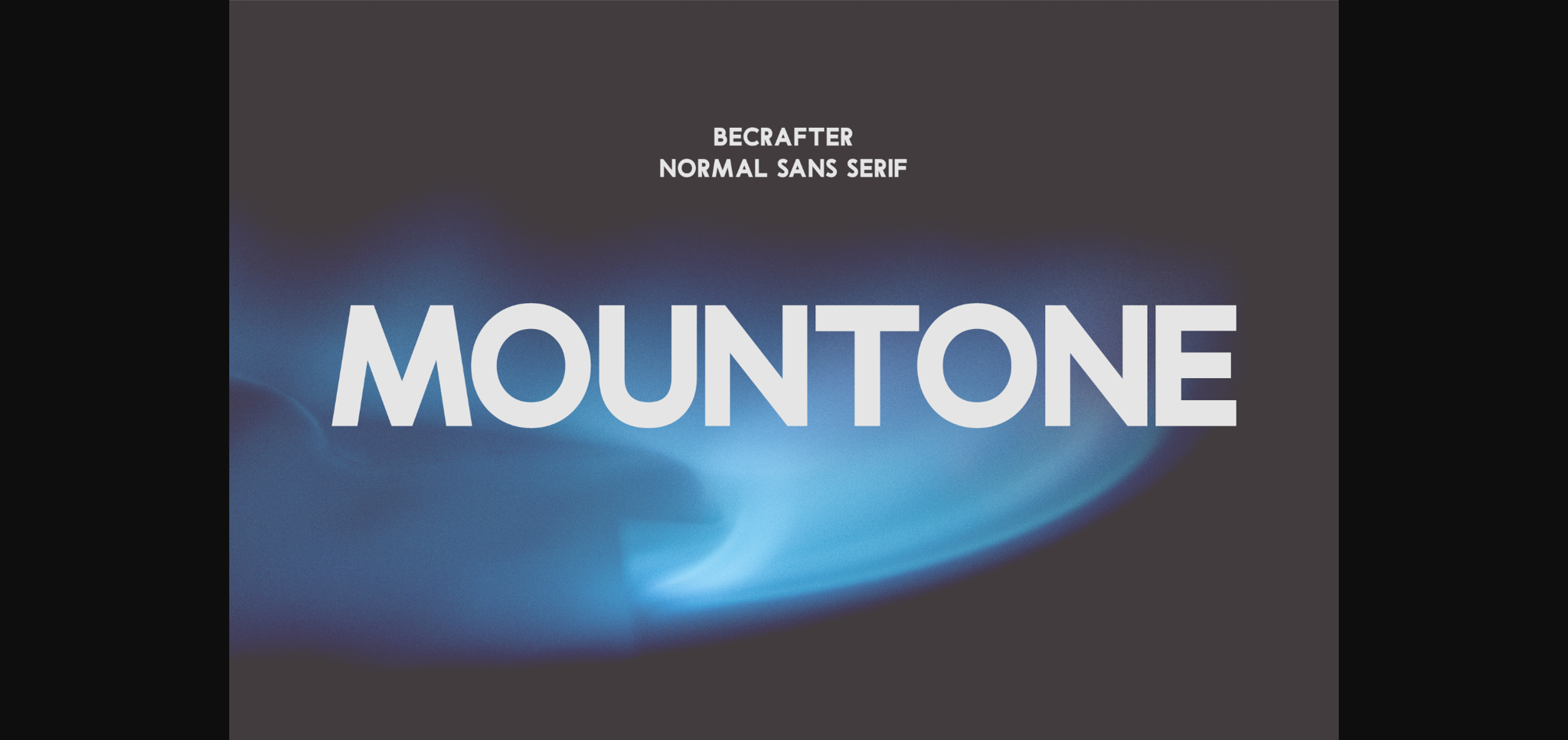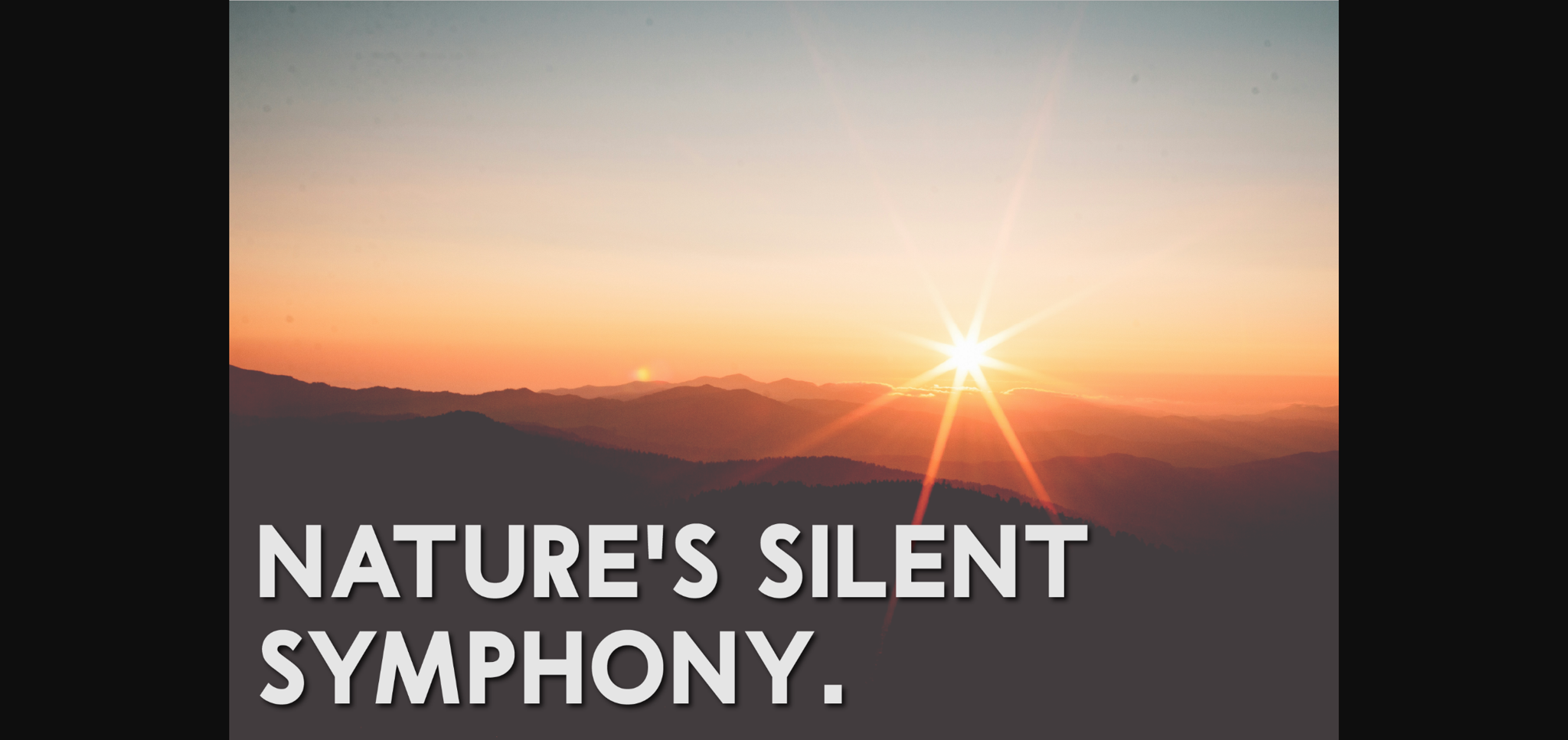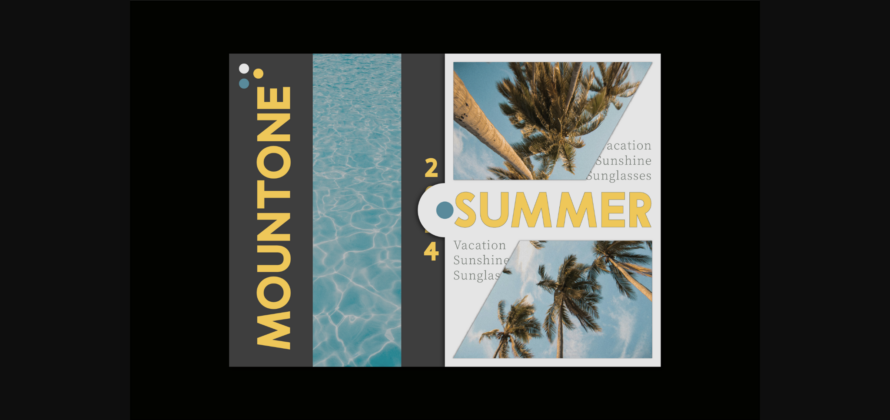
About Mountone Font
Introducing Mountone – a sharp, daring sans-serif font that leaves an indelible mark on the audience’s mind. Venture into the majestic world of typography with Mountone’s striking boldness and unapologetically unique design. It’s a testament of innovation, furnished with pointed tips that amplify its overall charm, ensuring that every syllable you print commands attention. Experience the profound impact rendered by Mountone, a font that effortlessly embodies strength and sophistication.